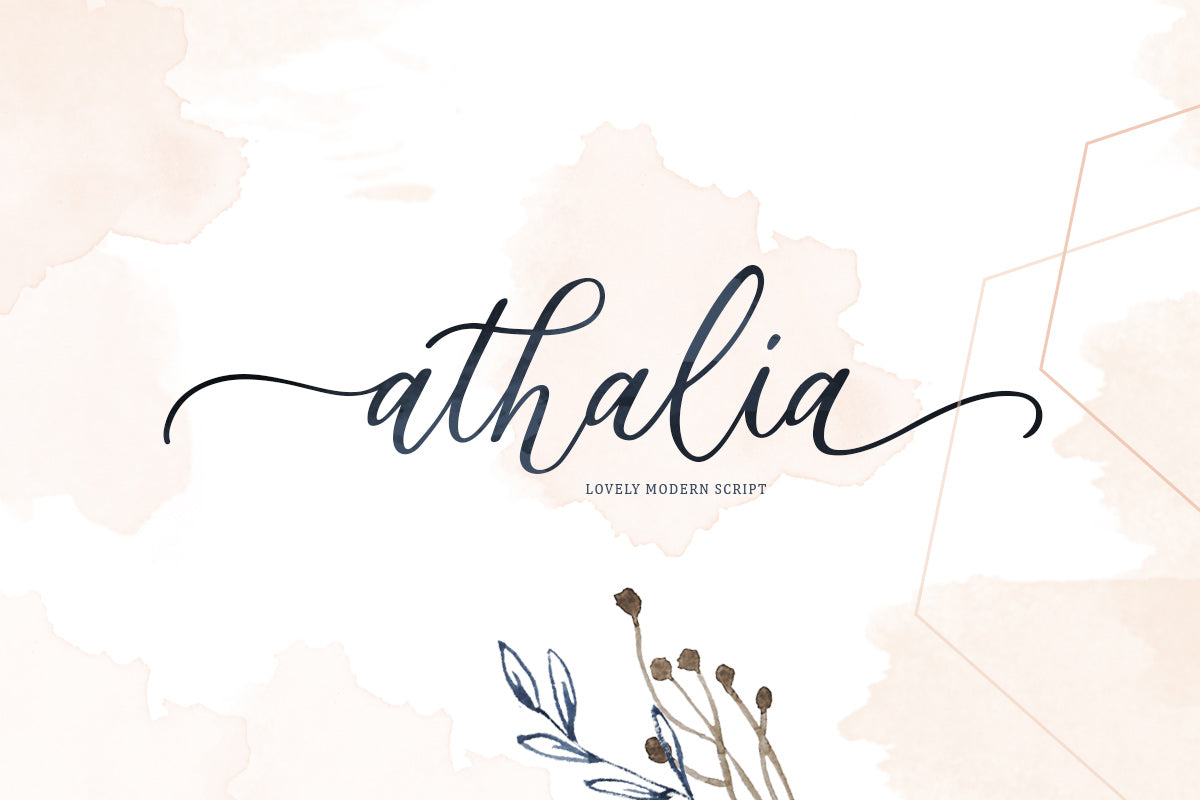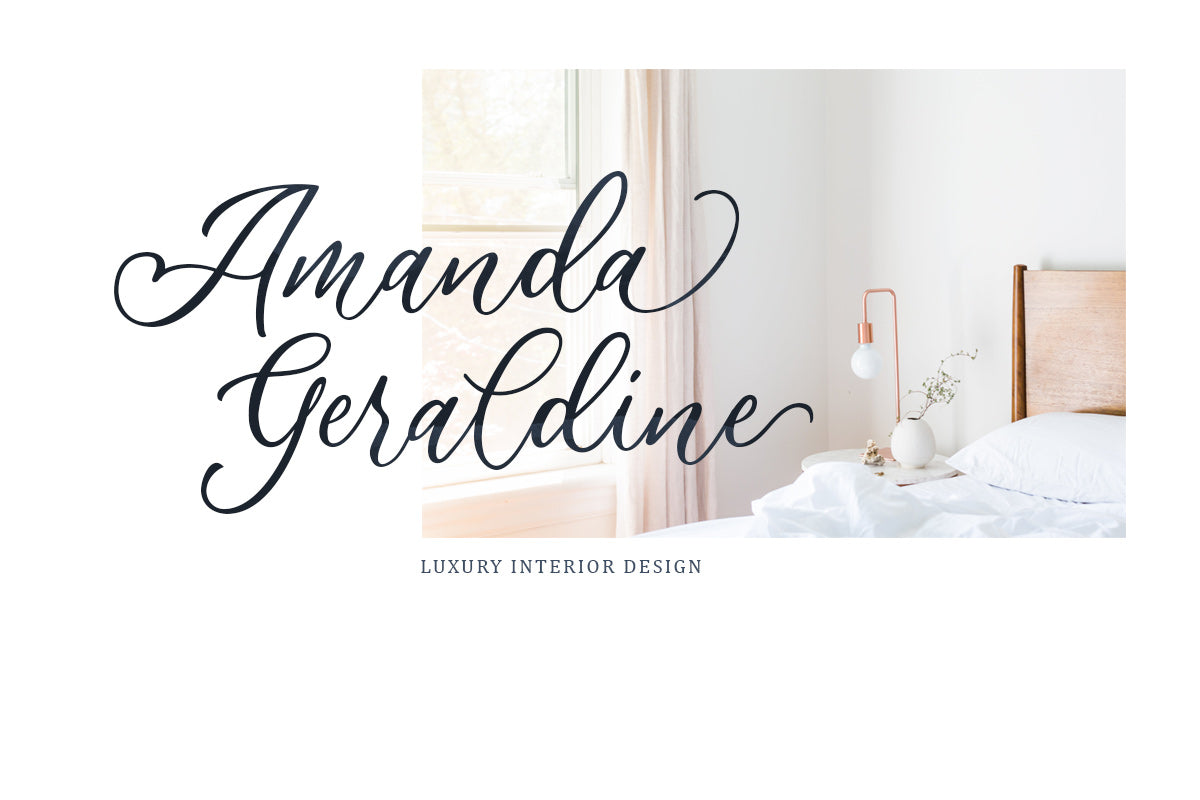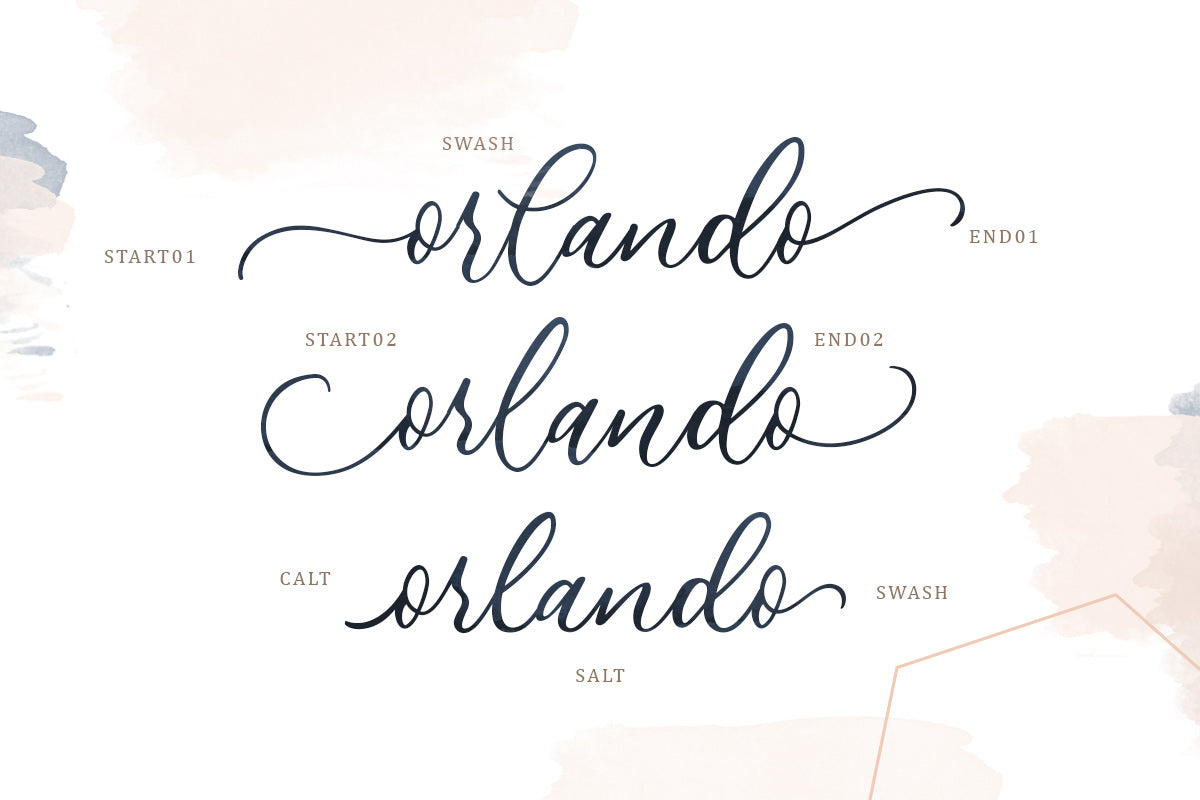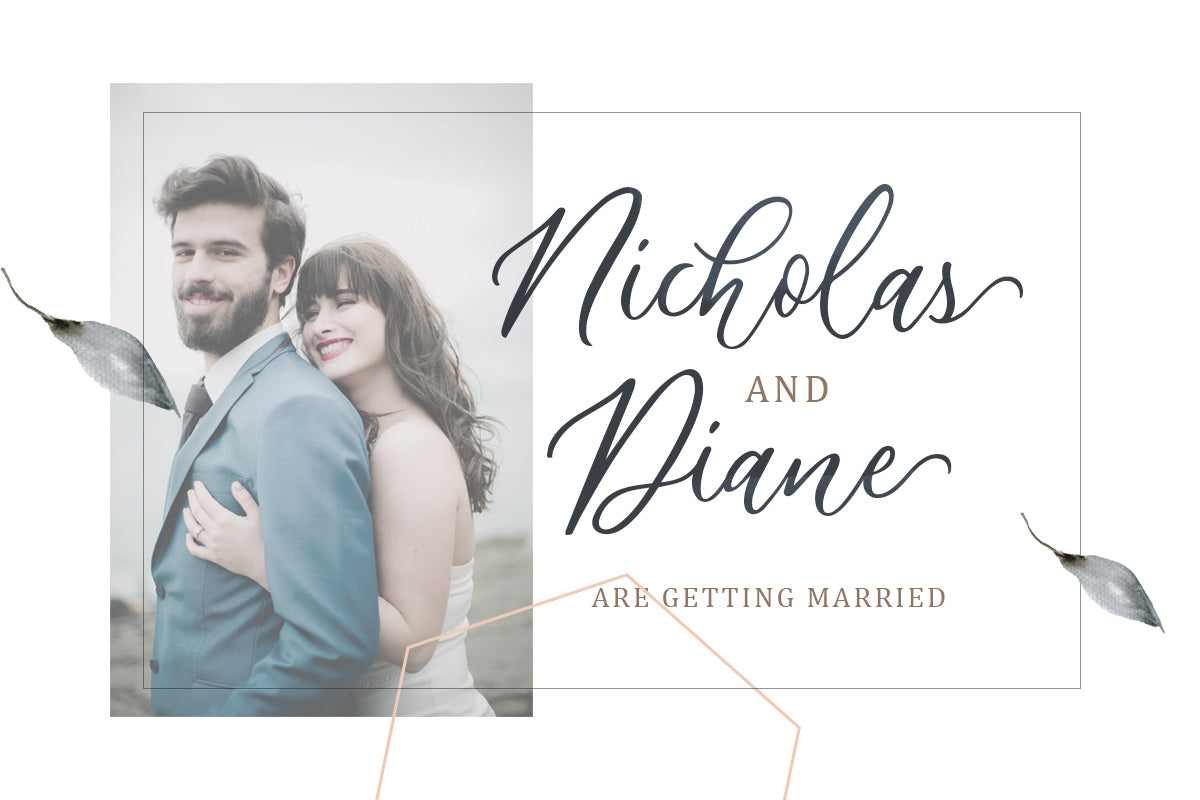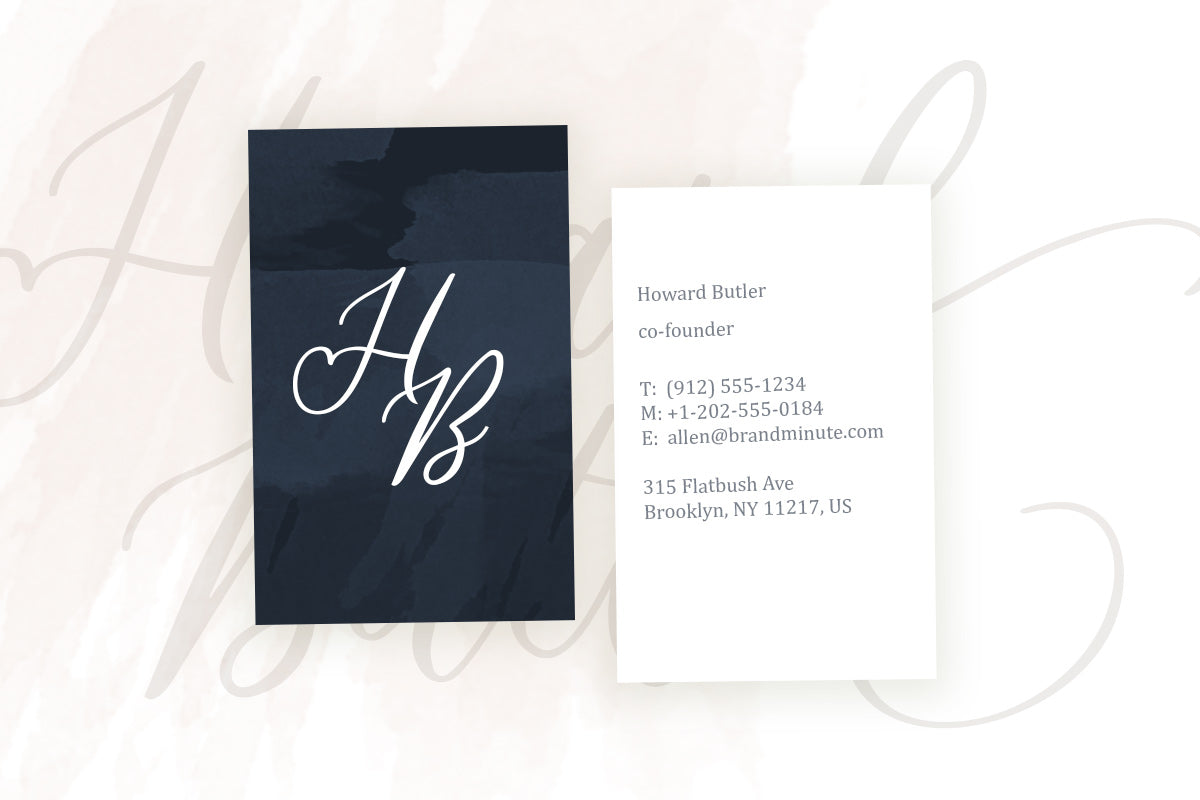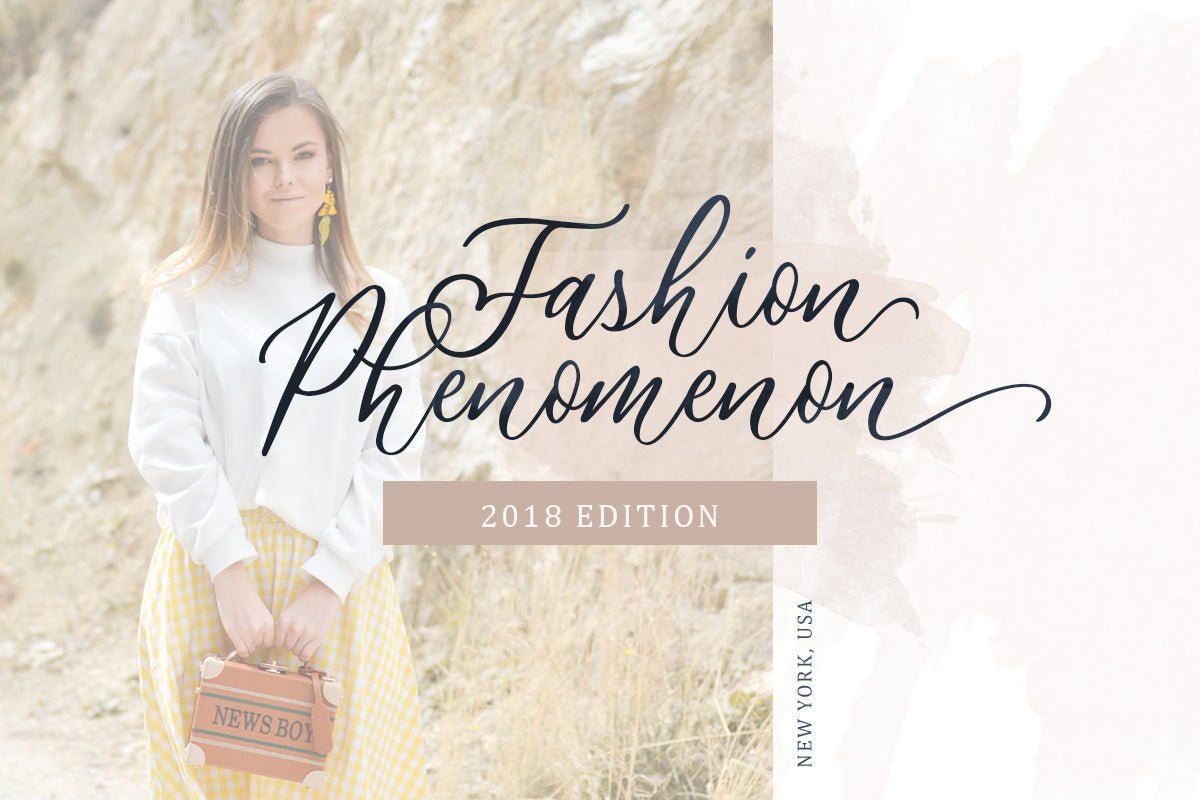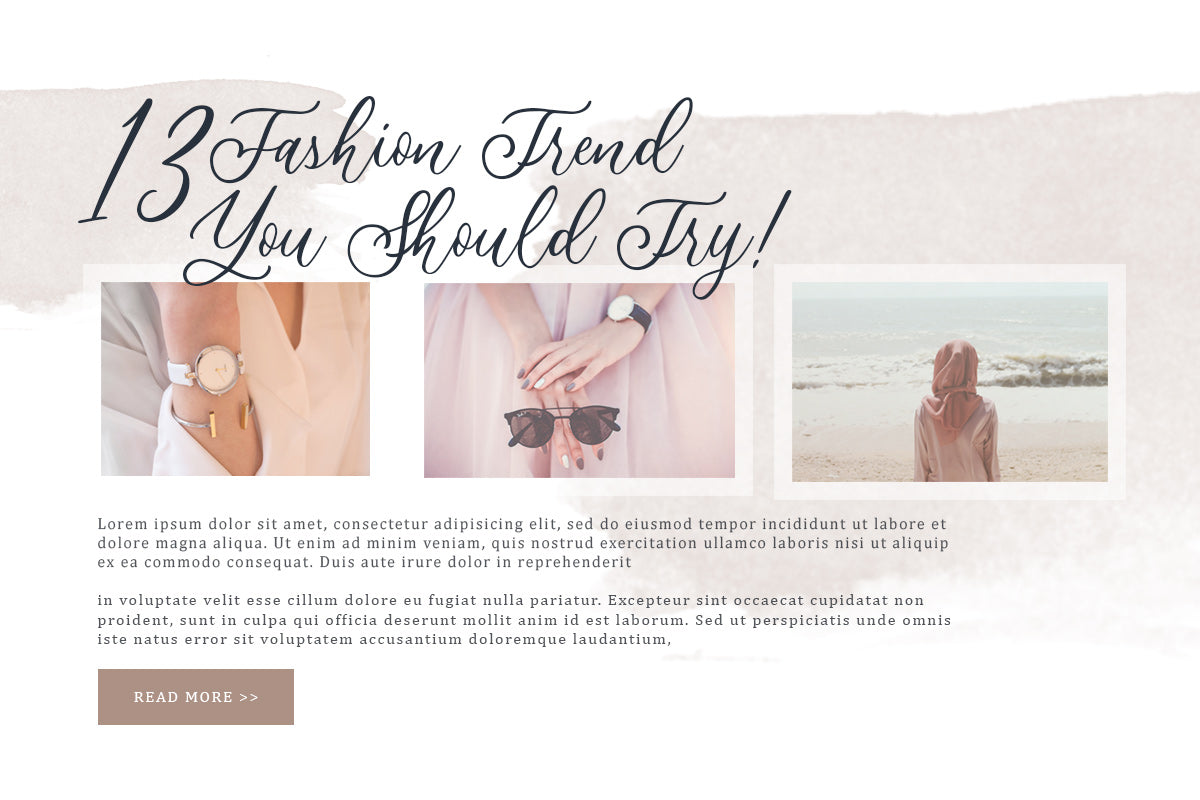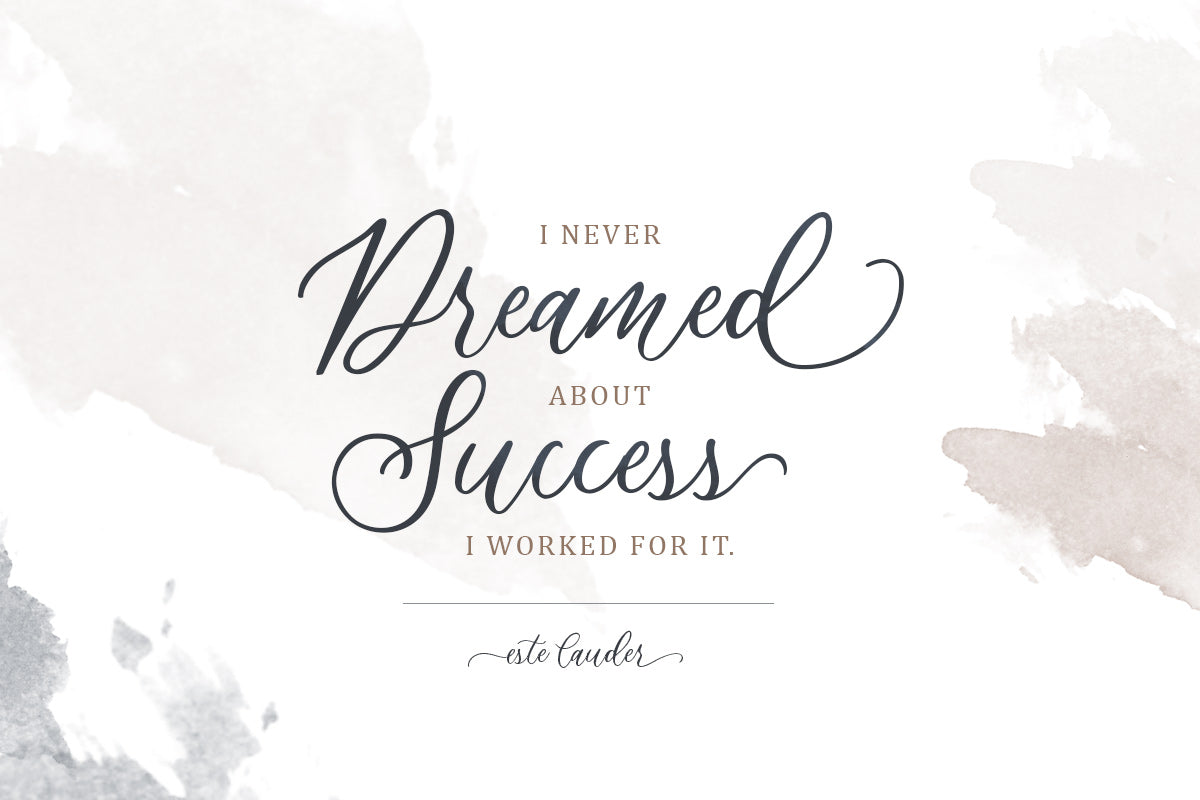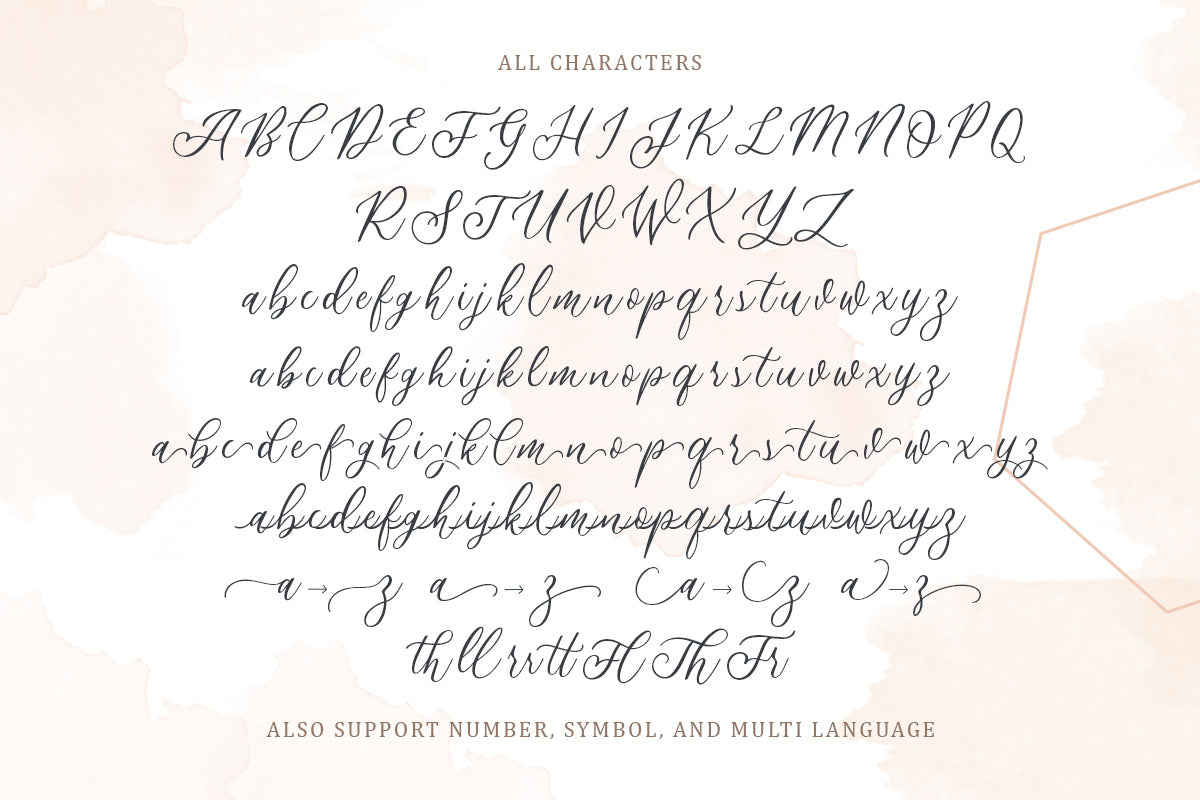
Introducing Athalia, a lovely modern script that conveys a sense of luxury. Its natural handwritten style is perfect for those who need a typeface for headlines, logotypes, apparel, invitations, branding, packaging, advertising, and more. This typeface includes uppercase and lowercase letters, punctuation, symbols, numerals, stylistic alternates, ligatures, and multilingual support.
Features:
uppercase & lowercase
numbers and punctuation
multilingual